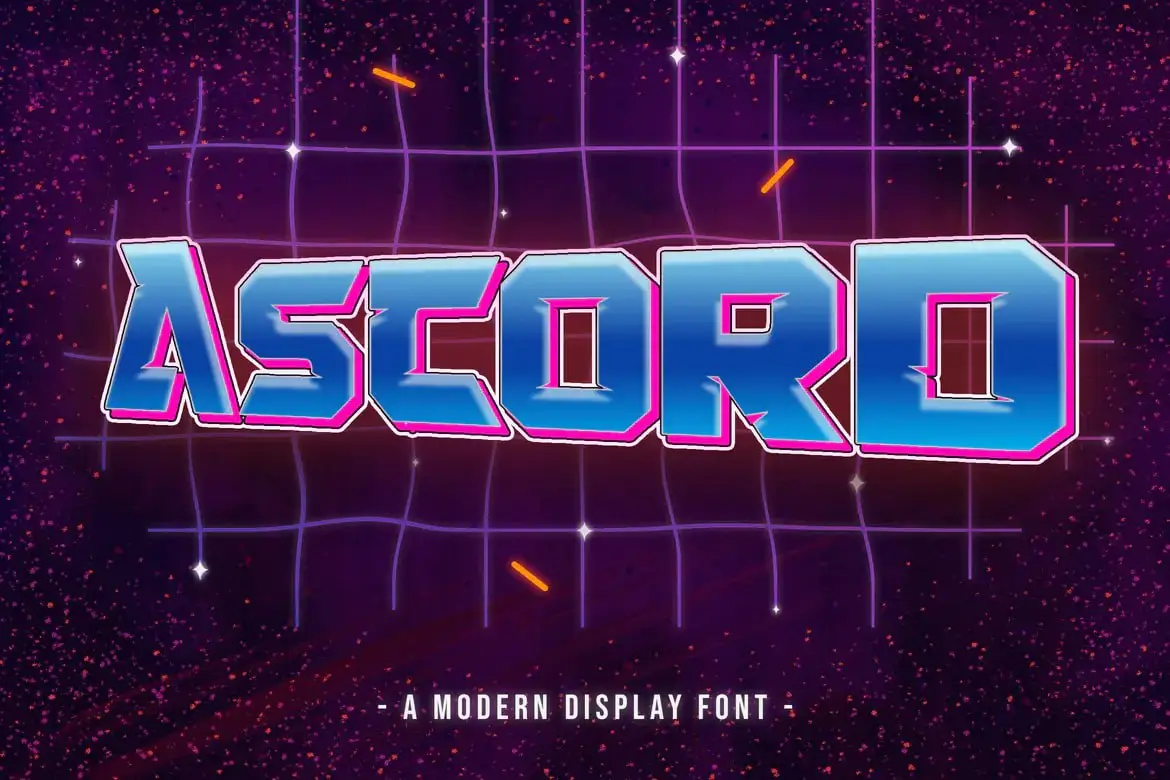
Ascord-Font
The Ascord Font is a versatile typeface designed to elevate your projects with its unique style. This font features a modern sans-serif design that is perfect for both digital and print applications.
• Multiple weights for flexibility in design
• Clean and contemporary aesthetic
• Uppercase and lowercase characters
This font is ideal for branding, logos, web design, print materials, and user interfaces. Its clean lines and modern look make it suitable for a wide range of creative projects.